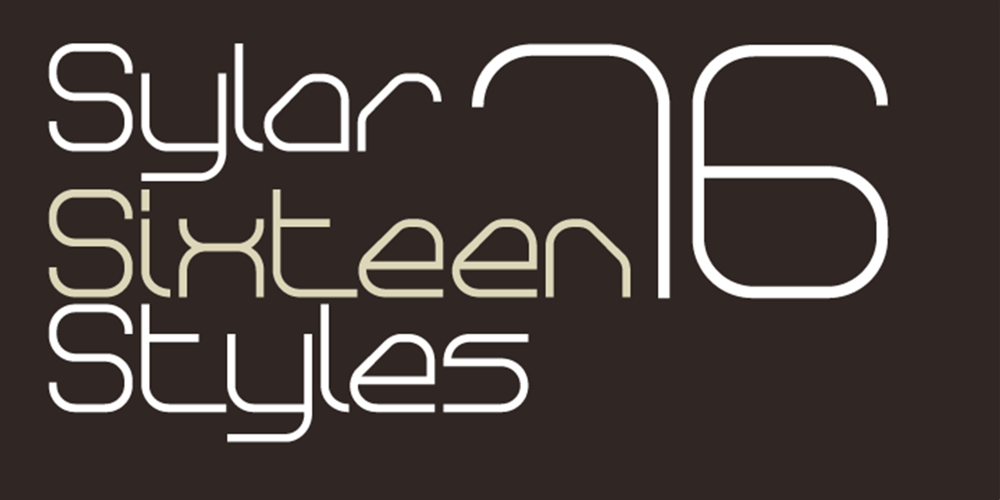
Sylar Font Family was designed by Jonathan Hill and published by The Northern Block. Sylar contains 17 styles and family package options. A linear modern typeface suited for branding & advertising projects. The variations in weight give great contrast when used across body copy & headlines.